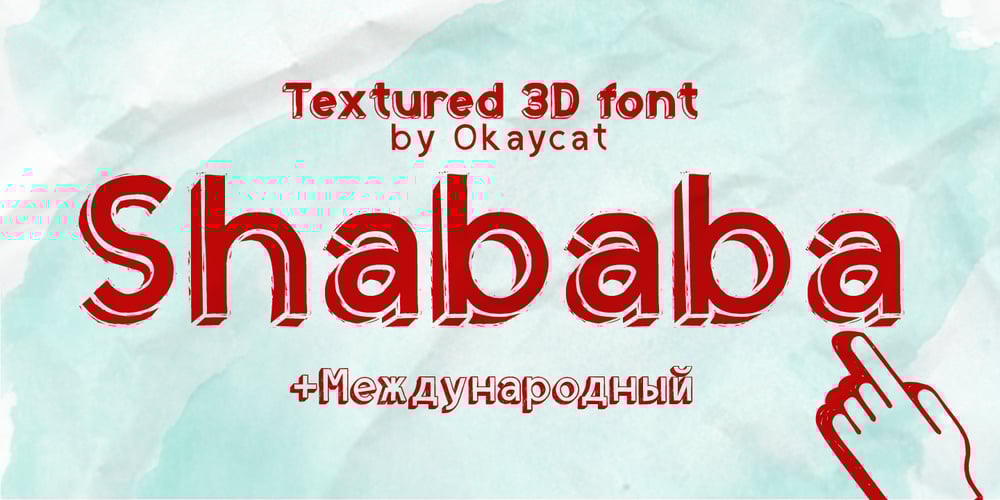
Shababa Font Family was designed by Luke William Turvey and published by Okaycat. Shababa contains 5 styles and family package options. Shababa is a hand-drawn 3-D font. The linework is fairly relaxed, mostly smooth with some distressed edges. There is lots of texturing from the pen strokes which becomes more evident at larger point sizes. This looseness enhances the smooth technicality of the properly extruded forms. With extended codepages for Cyrillic, Romanian, Turkish, Baltic & Central Europe, Shababa is suitable for multilingual environments & publications. It also features West European diacritics, ligatures & a sprinkling of dingbats for extra fun!